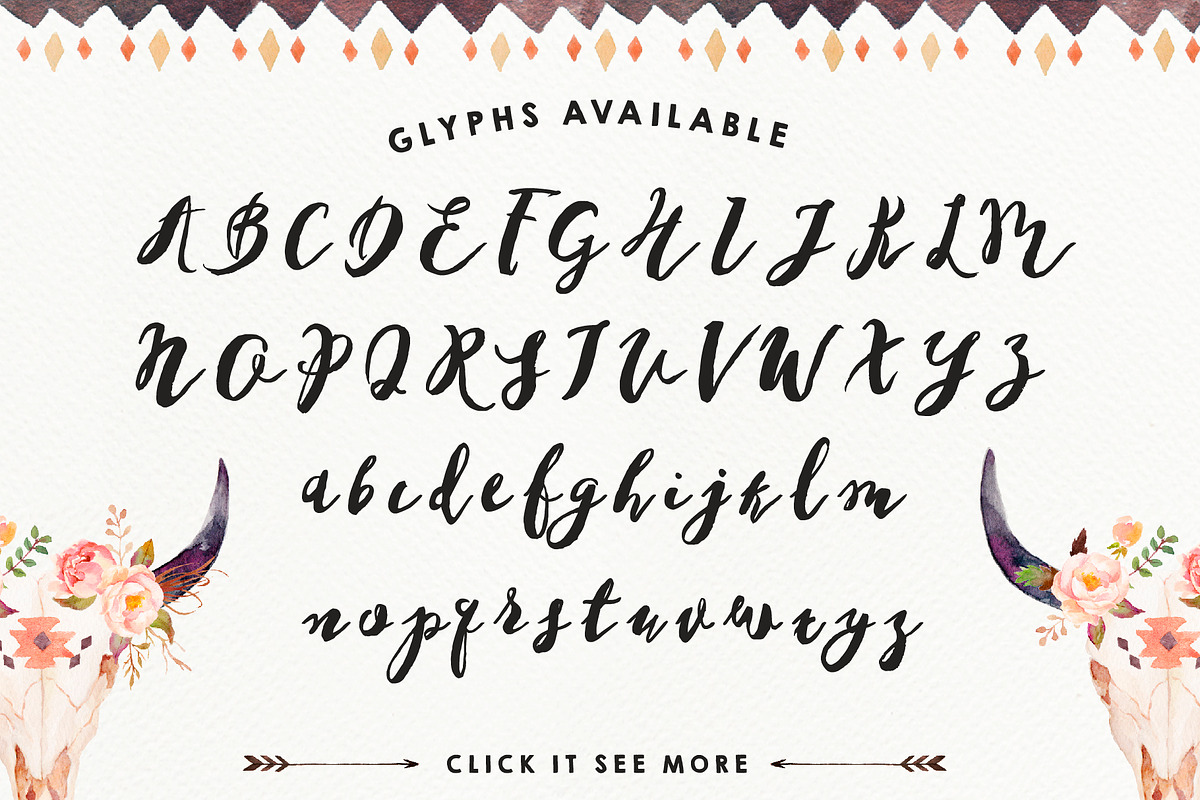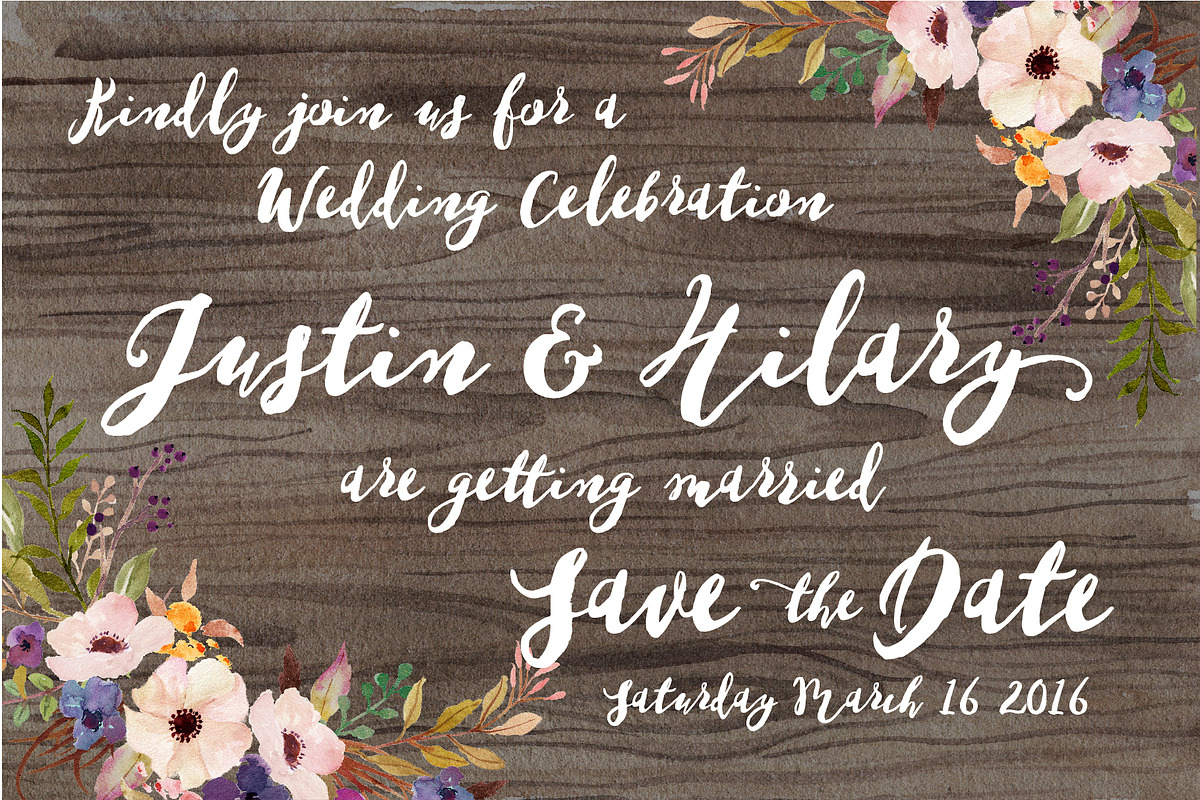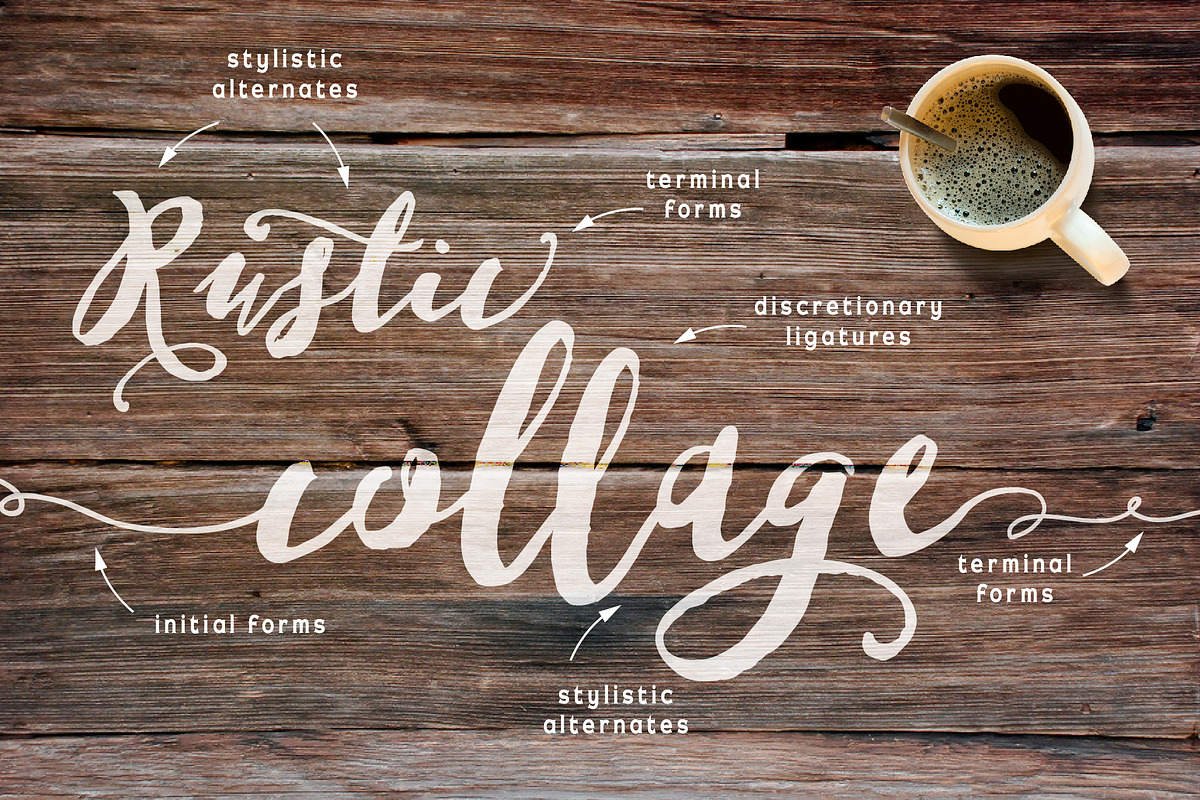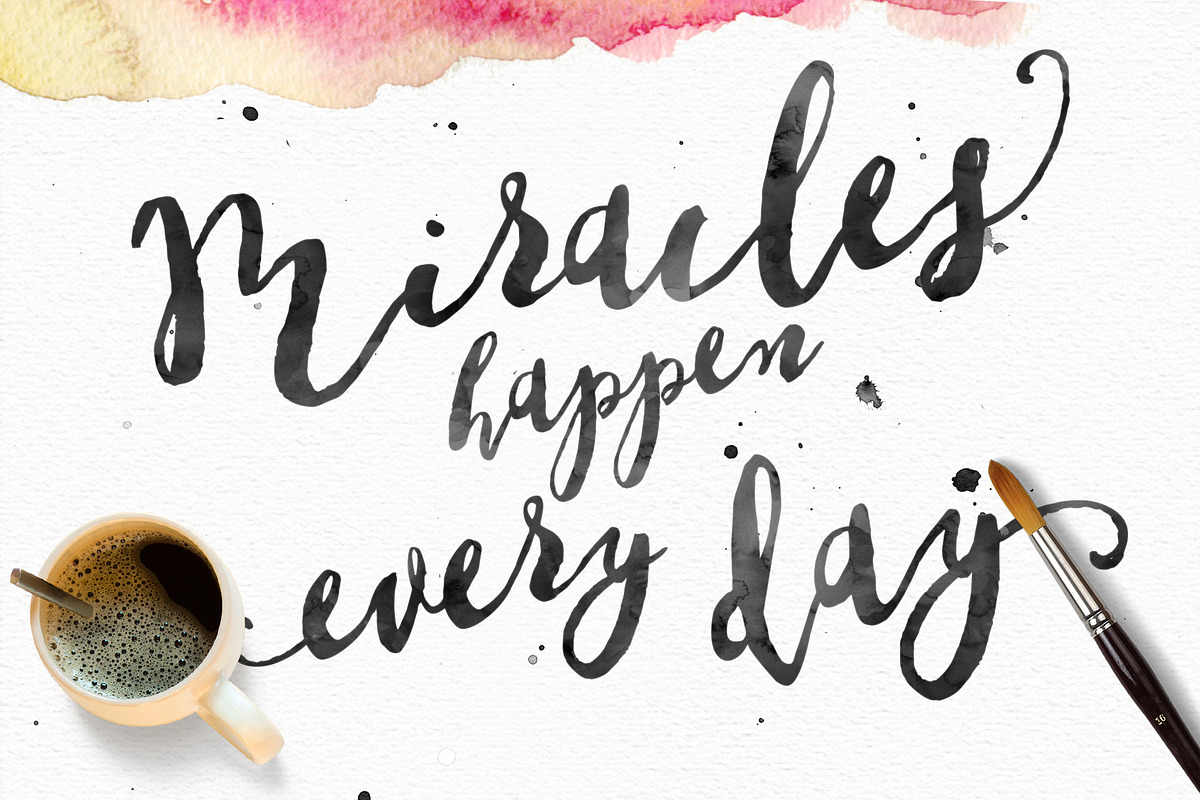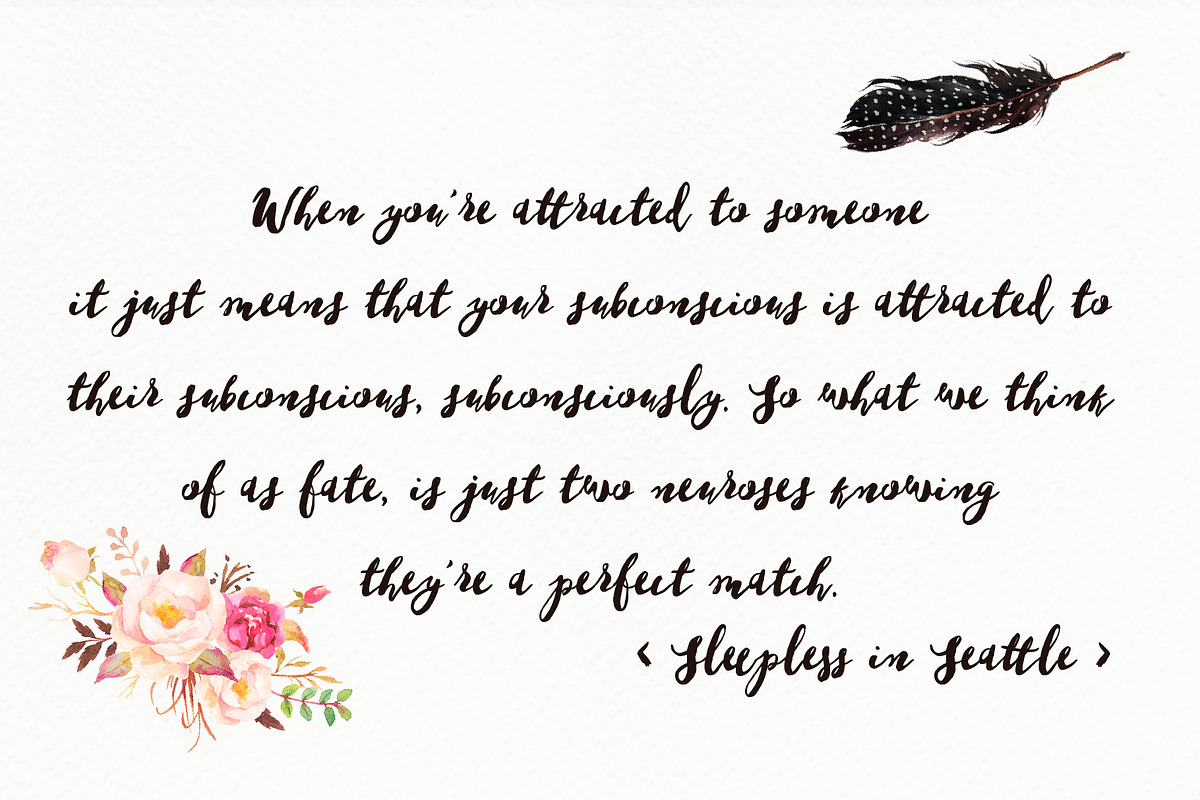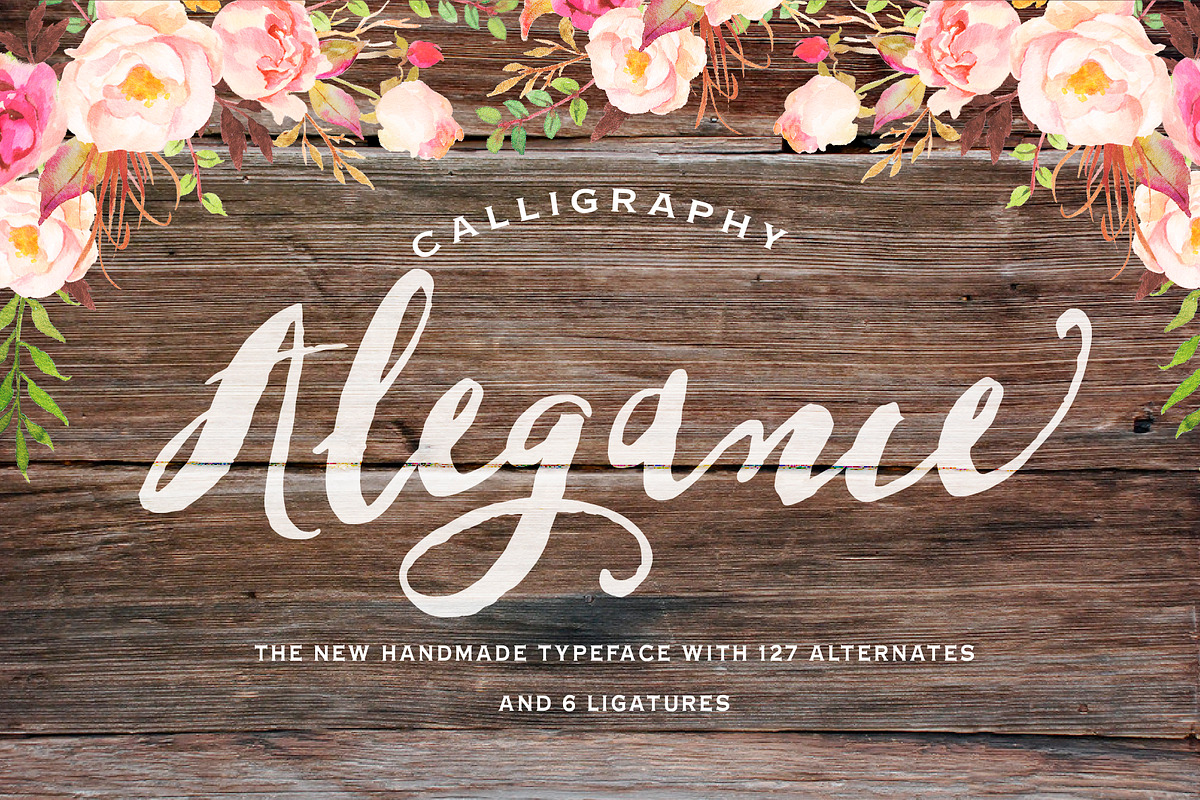
Alegance Typeface
Alegance Typeface by Graphic Box is a font selected for branding, posters, packaging, typography.
- Alegance is a beautiful handmade calligraphy typefaces, Alegance features 127 alternate characters ,6 ligatures,16 ornaments.
- including initial and terminal letters, alternates, ligatures .
Alegance Typeface by Graphic Box fits naturally into Branding, posters, packaging, typography.